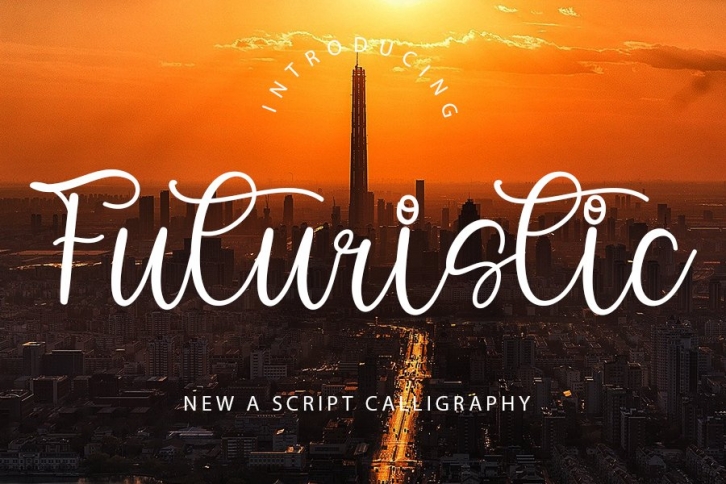
Futuristic is a gorgeous font that was realeased on November 17, 2021. The font can be used in many style contexts and design environments. Perfect for invitations, magazines, websites, logos, and more! It was designed by KINSTUDIO and the file size is 7.85 MB. Thanks for checking out this font!